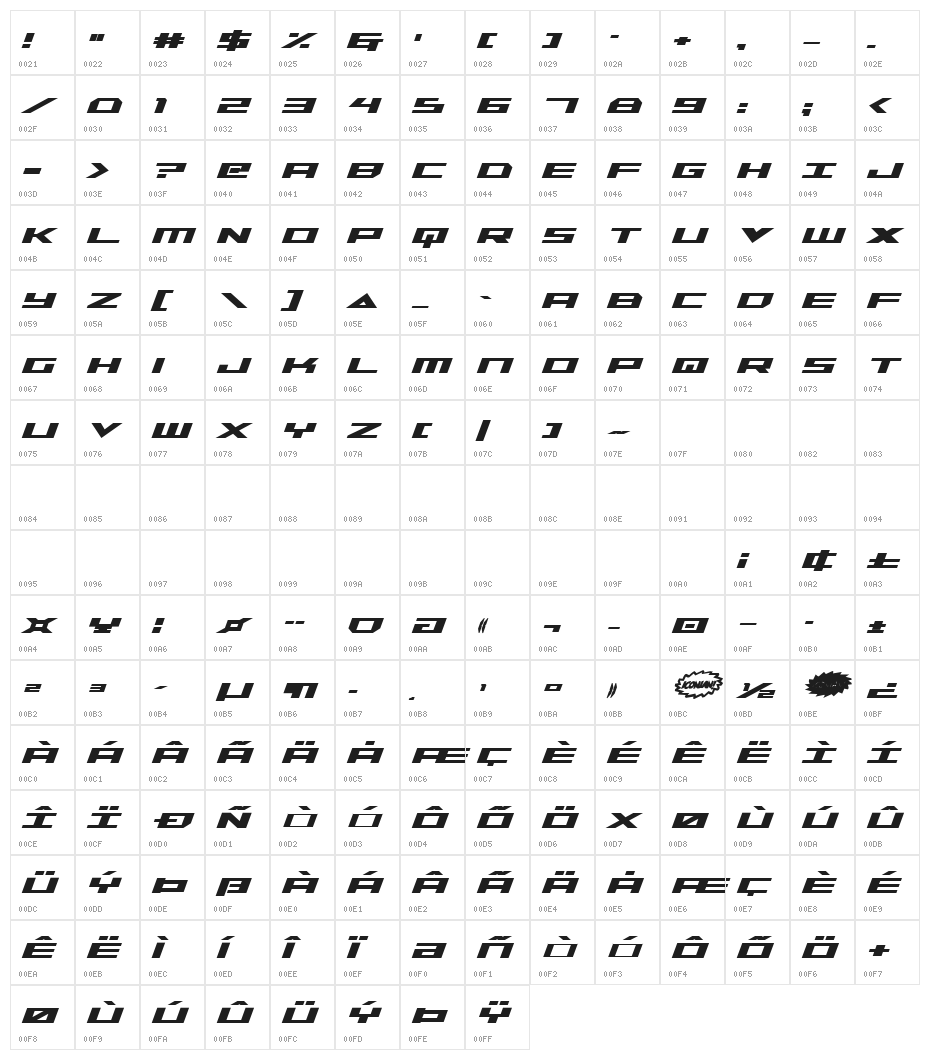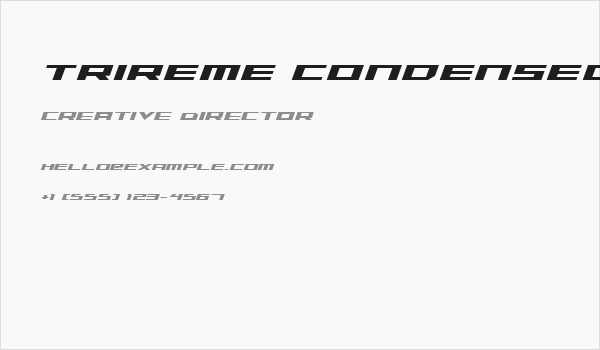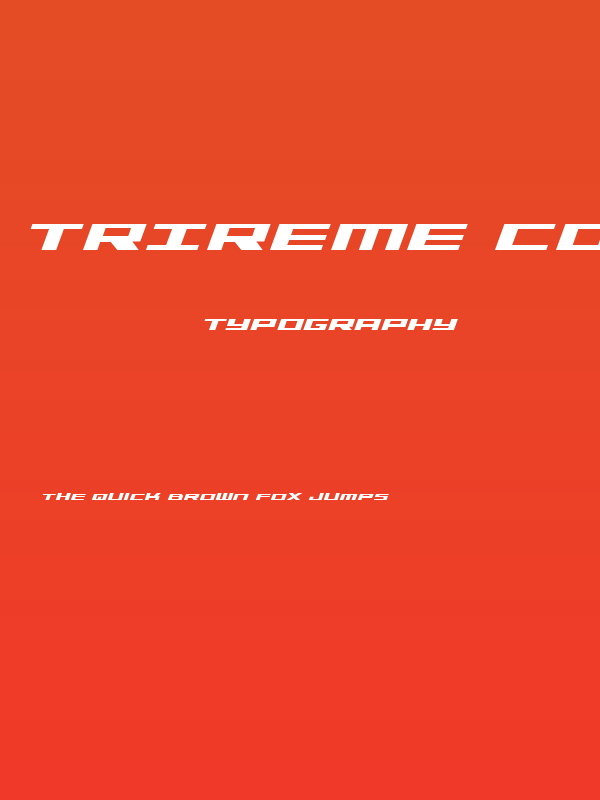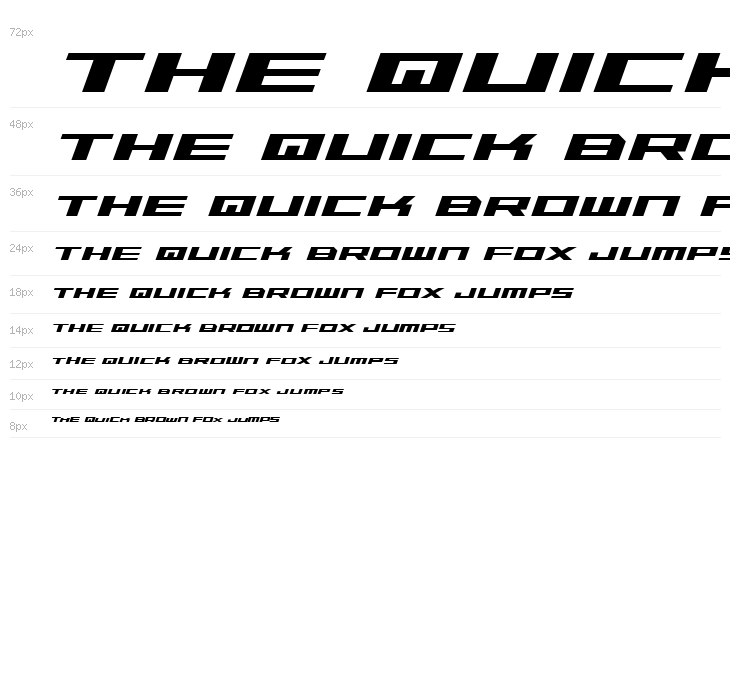
Trireme Condensed Bold Italic Font
Trireme Condensed Bold Italic Description
This font features a dynamic and angular design, characterized by its bold and italicized style. The letters are condensed, giving a compact appearance that enhances its modern and futuristic feel. The sharp edges and diagonal lines create a sense of movement and energy, making it stand out in any design. The numerals and special characters maintain the same angular and bold characteristics, ensuring consistency across all elements. This font is ideal for projects that require a strong visual impact, such as branding, advertising, and digital media.